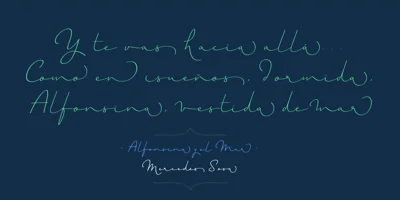
Horizontes Script
Horizontes Script Font
The Horizontes Script Font is perfect for elegant wedding invitations, luxury brand logos, romantic greeting cards, handwritten-style quotes, feminine business branding, sophisticated packaging design, boutique signage, social media calligraphy posts, and premium editorial layouts that require graceful script typography.
What makes the Horizontes Script Font so exciting is its exquisite blend of traditional calligraphy artistry with contemporary design sensibilities. This stunning script typeface captures the fluid beauty of hand-lettered calligraphy while maintaining the consistency and professionalism required for modern design applications. The font's graceful flourishes, elegant connections between letters, and sophisticated character variations create a sense of luxury and refinement that instantly elevates any design project, making it feel more personal and exclusive.
The Horizontes Script Font family typically includes regular and bold weights, along with an extensive collection of decorative alternates, swashes, ligatures, and ornamental elements that provide designers with countless customization options for creating unique and personalized typography solutions.
Luxury brands and creative professionals consistently choose Horizontes Script Font for its unmatched elegance and versatility. This premium script typeface embodies the perfect marriage of artistic expression and functional design, offering designers a sophisticated tool for creating memorable brand experiences. Whether you're crafting high-end product packaging, developing romantic wedding stationery, designing boutique fashion labels, or creating captivating social media content, this font adds an unmistakable touch of class and sophistication.
The beautifully crafted letterforms of the Horizontes Script Font feature smooth, flowing strokes that mimic natural pen movements, creating an authentic handwritten appearance. The carefully balanced ascenders and descenders, combined with thoughtful letter spacing, ensure optimal readability while preserving the font's artistic integrity and emotional appeal.
Calligraphy enthusiasts and professional designers appreciate the font's extensive OpenType features, which include contextual alternates that automatically substitute characters for more natural letter combinations, creating seamless connections and authentic script flow throughout text passages.
For businesses and individuals seeking to communicate sophistication, elegance, and personal touch in their visual communications, the Horizontes Script Font represents an exceptional typography choice. Its timeless appeal and premium quality make it particularly suitable for wedding planners, luxury retailers, beauty brands, and artisanal businesses that value craftsmanship and attention to detail.